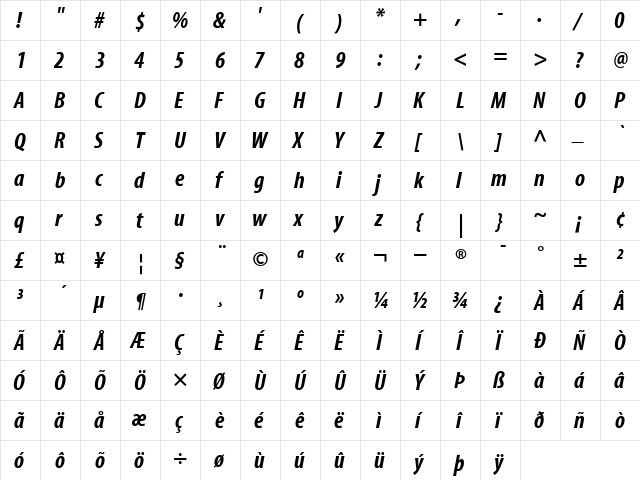
MyriadCn BoldItalic Font Preview
Design Context for MyriadCn Typeface
MyriadCn offers clean, dependable letterforms without strong stylistic allegiance, making it a practical choice for designers who need flexibility. Its italic angle brings a sense of urgency and motion to the letterforms. The heavy weight commands attention and anchors typographic hierarchies.
Pro Tip: Try MyriadCn for annotation and caption copy alongside an upright companion — the contrast in angle creates a dynamic but ordered typographic system.